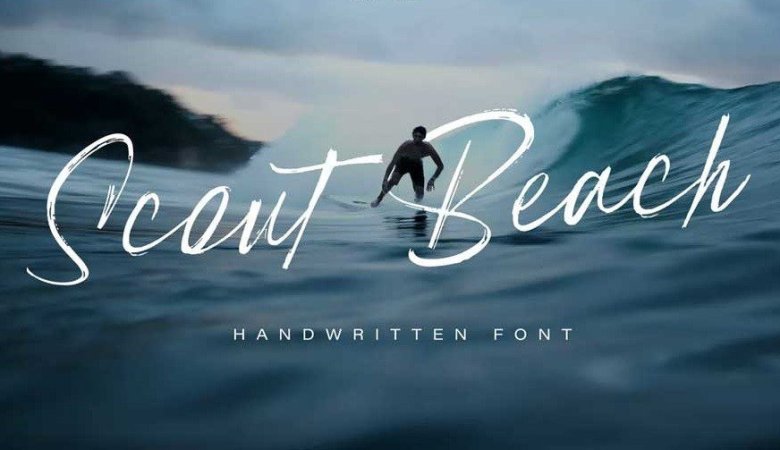
Scout Beach Handwritten Brush Font
Are you looking for a simple and elegant handwriting brush font? We can help! Try to download our Scout Beach font.
The font is suitable to use for casual purpose.
Try to use it on Wedding invitation, photography, branding, event, food menu and other related visual to see the best of it.